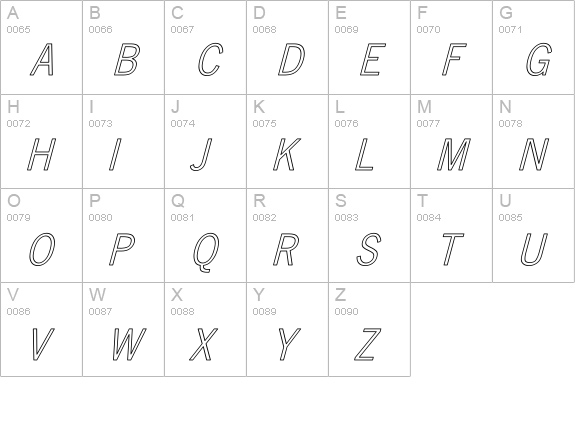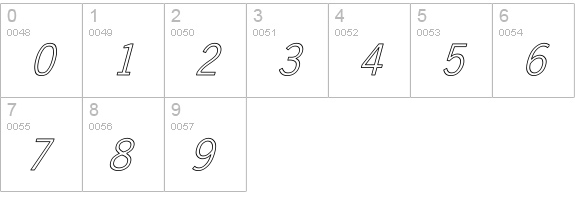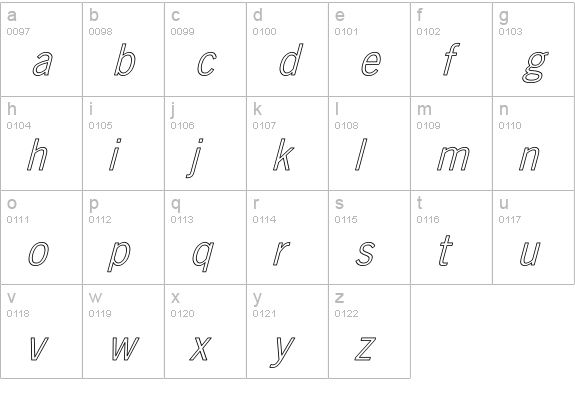
NewsGothic Hollow Italic Font Details
NewsGothic Hollow Italic is a distinctive, italic variant in the NewsGothic typeface family \xE2\x80\x94 well suited to design and typography projects.
NewsGothic Hollow Italic is a sleek and modern font that exudes sophistication and elegance. Its unique hollow design adds a touch of creativity and style to any project, making it perfect for headlines, titles, and other eye-catching text. The italicized style of this font gives it a dynamic and contemporary look that is sure to make a statement. And the best part? NewsGothic Hollow Italic is available for free download at FontsMarket.com. That's right, you can elevate your design projects with this stunning font without having to spend a dime. So why wait? Download NewsGothic Hollow Italic today and take your designs to the next level!